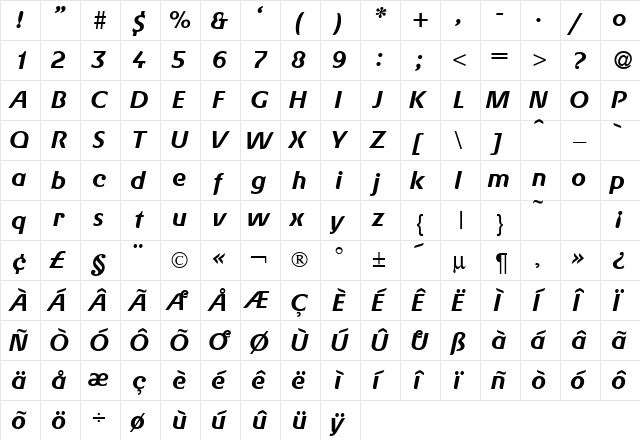
GerdaDB BoldItalic
Design Context for GerdaDB Typeface
GerdaDB is a composed and adaptable typeface that performs quietly and consistently across a wide range of design contexts. The slanted form adds forward momentum and visual energy. Its bold stroke weight gives it real presence on the page.
Pro Tip: Try GerdaDB for annotation and caption copy alongside an upright companion — the contrast in angle creates a dynamic but ordered typographic system.